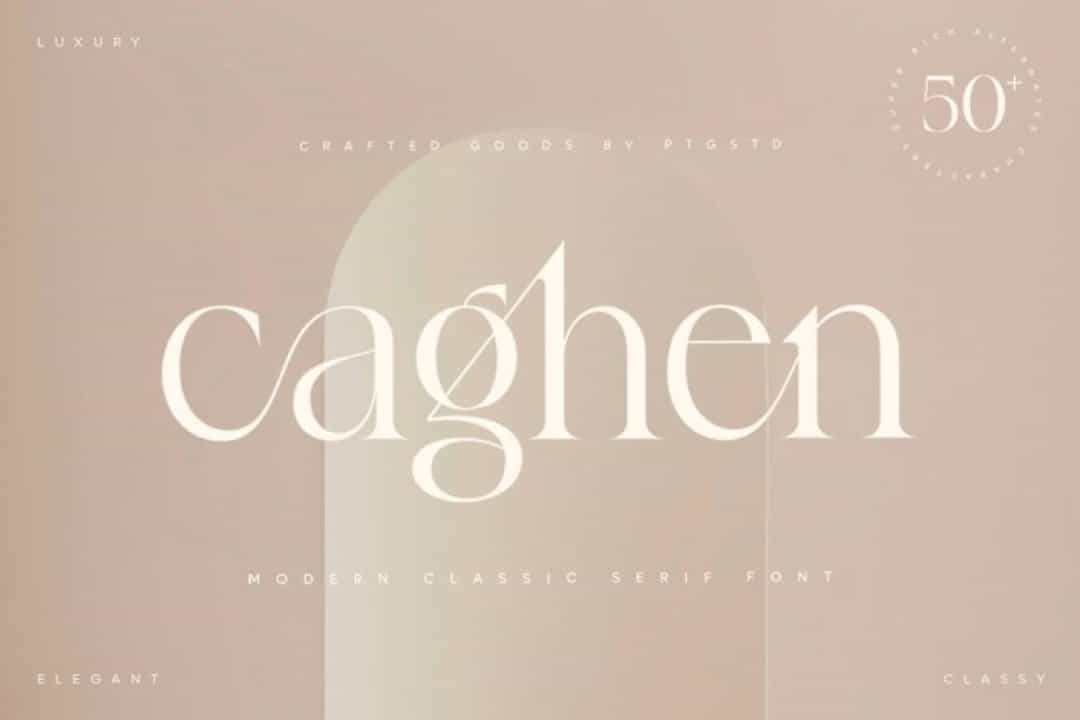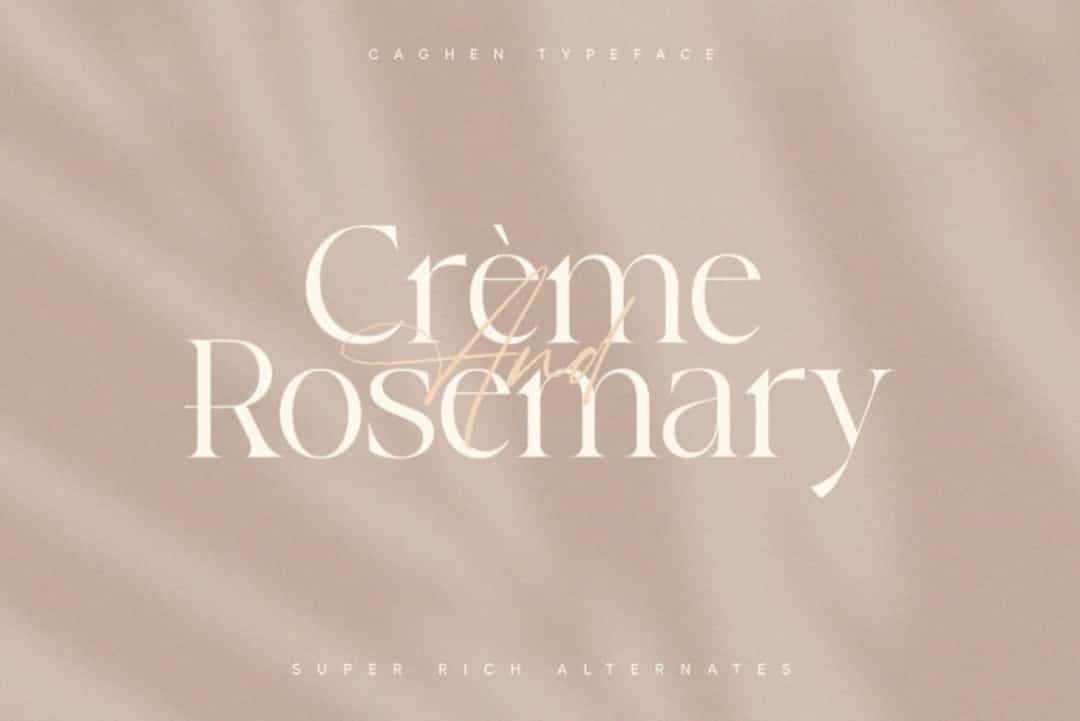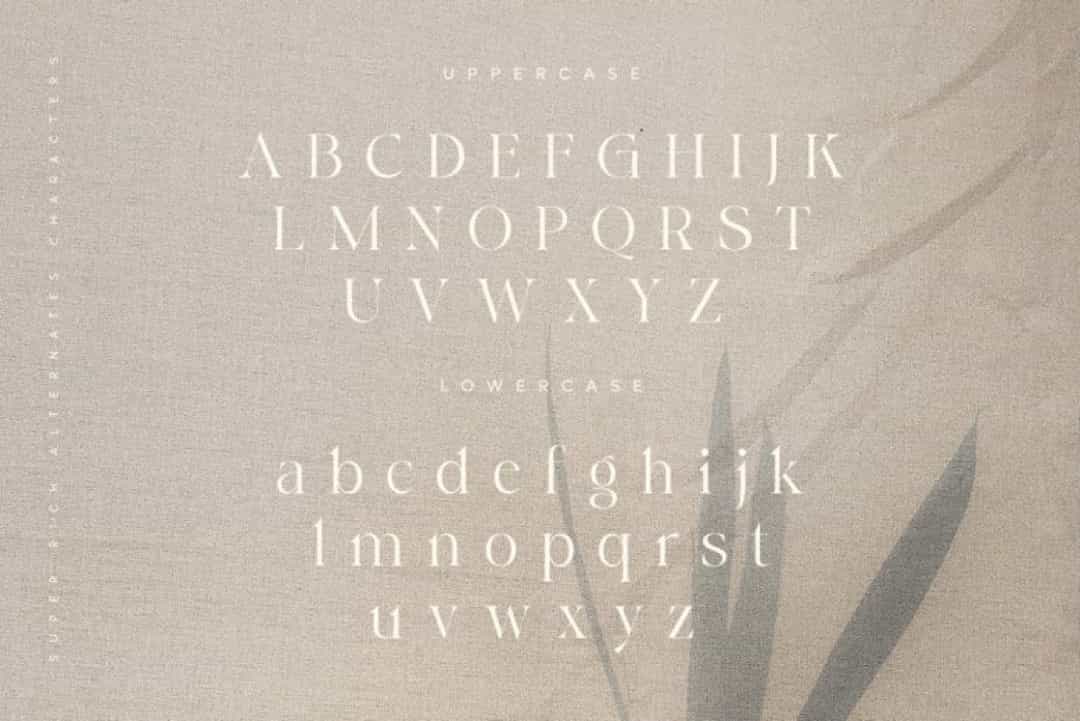
Caghen is an elegant serif font inspired by modern and sophisticated characters, perfect for fashion-related projects such as headlines, titles, packaging’s posters or logotypes as well as occasional text use.